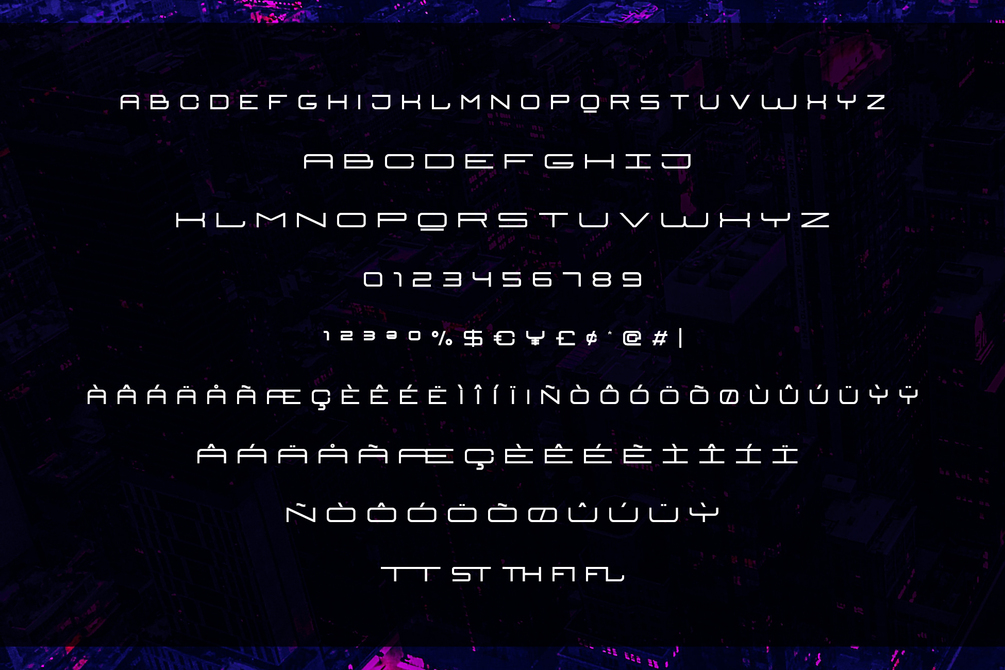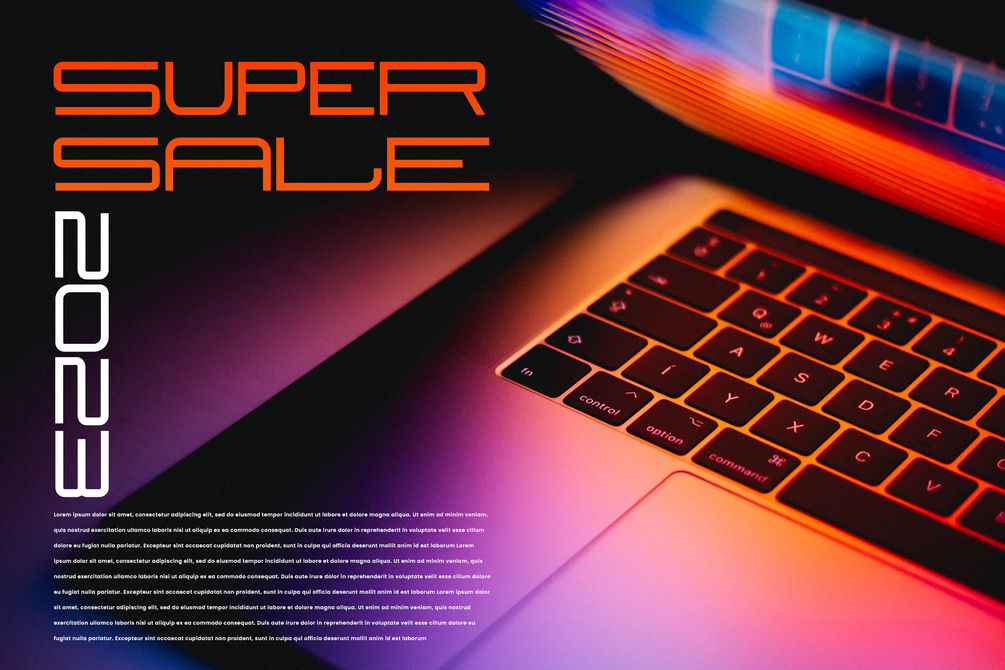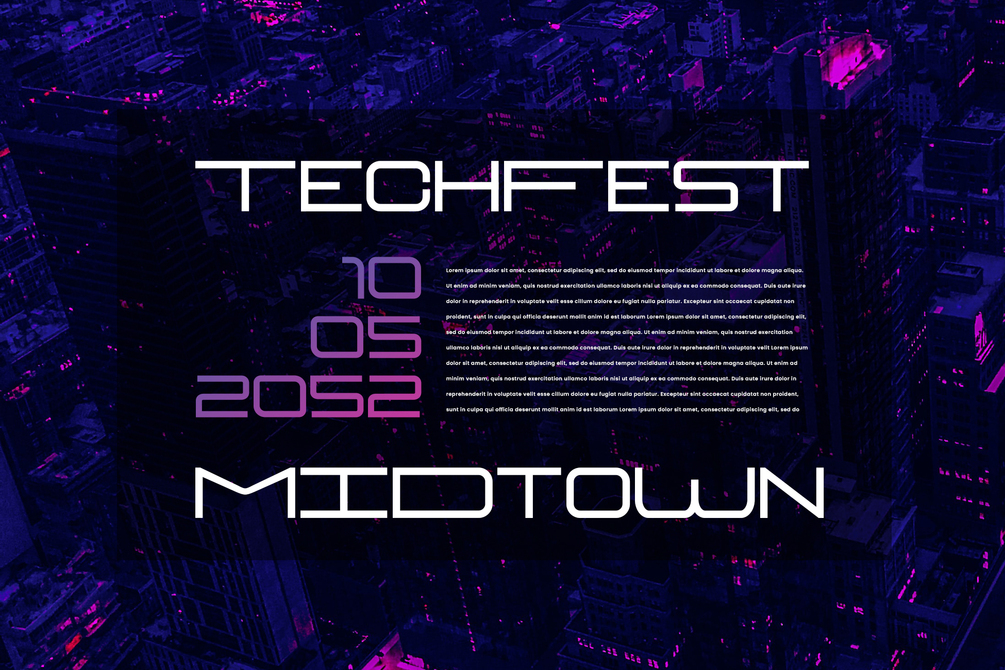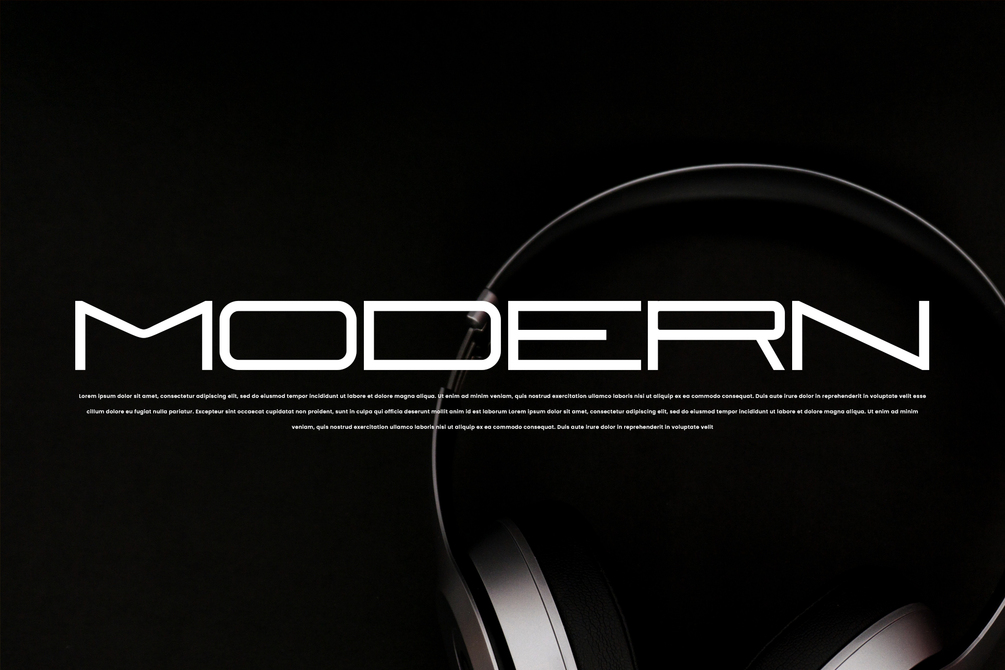
Estz Font
Estz is an All-Caps Font with Modern Feel. suitable for branding, logotype, technology stuff, modern & futuristic vibe, social media, products, and so on. contains standard English letters, numbers, punctuation, ligature, Italic version and several accents that support multilingualism.